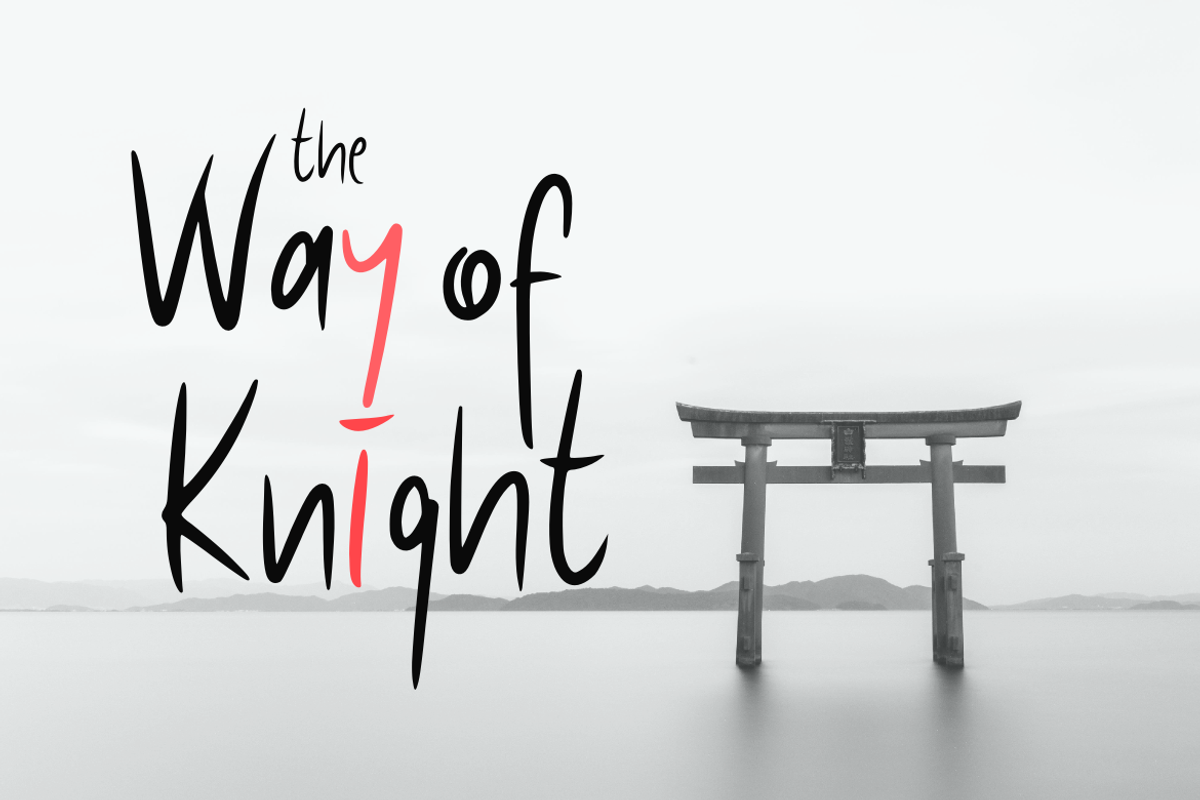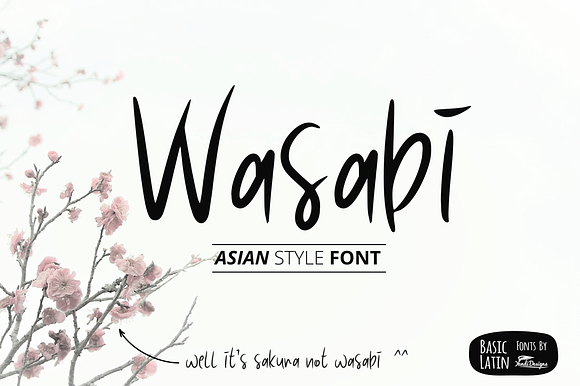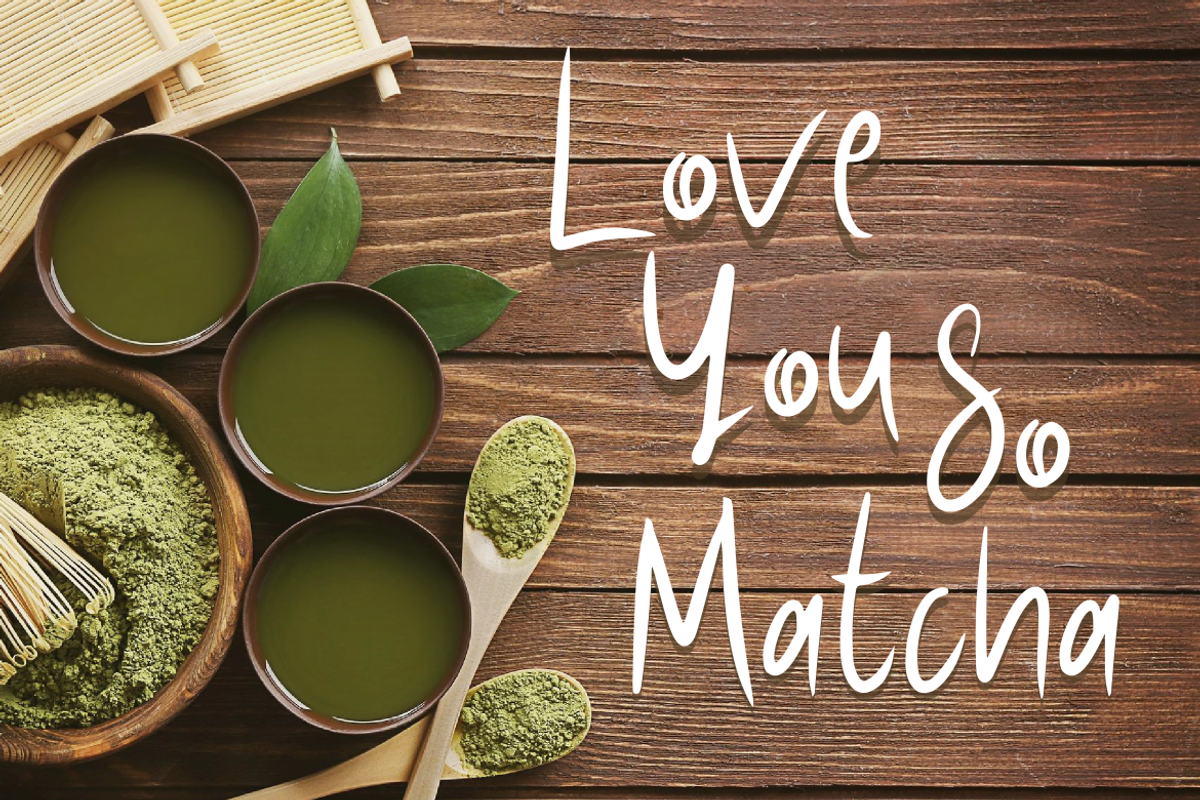
Wasabi Asian Style Font
Simple and modern font , suitable for many project , quotes, logo , heading , title etc.
Why Wasabi Asian Style Font is worth a look
Wasabi Asian Style Font by YandiDesigns fits naturally into Branding, posters, packaging, typography.